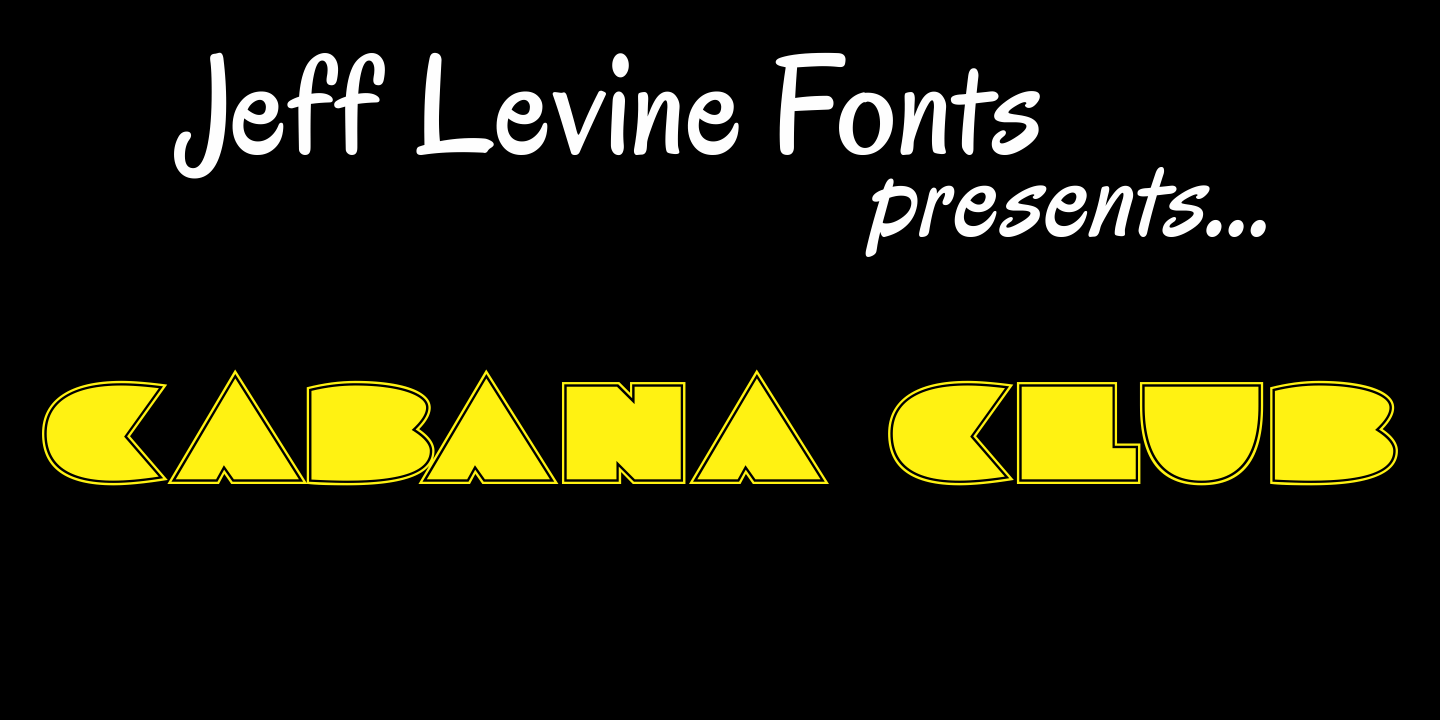
Cabana Club
Bring back the glory of winters in Miami Beach, exotic summer vacations or Deco-era night spots with Cabana Club JNL - a retro-Deco font, complete with contour outline and solid black characters.